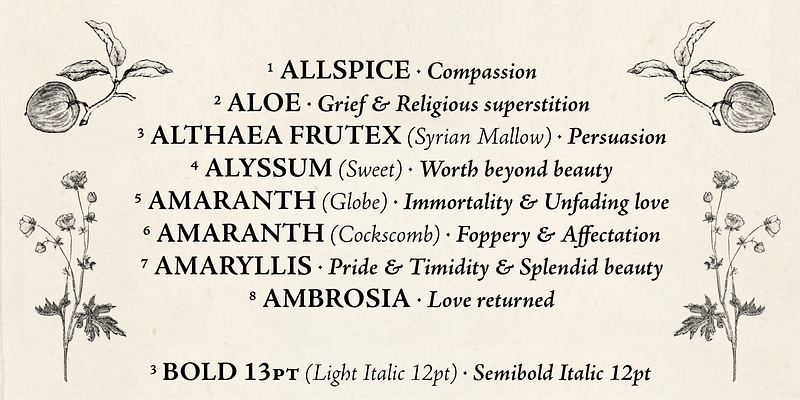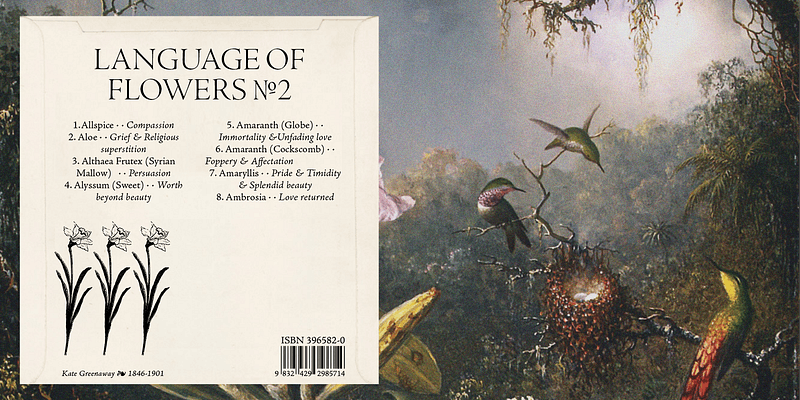
Adobe Jenson Pro captures the essence of Nicolas Jenson’s roman and Ludovico degli Arrighi’s italic typeface designs. The combined strength and beauty of these two icons of Renaissance type result in an elegant typeface suited to a broad spectrum of applications. Designed by Robert Slimbach of the Adobe type design team, Adobe Jenson Pro is part of the family of Adobe Originals historical revivals, including Adobe Garamond Pro and Adobe Caslon Pro. With its many OpenType features, extended language support and typographic refinement, Adobe Jenson Pro provides a power and flexibility for text composition rarely found in digital type.